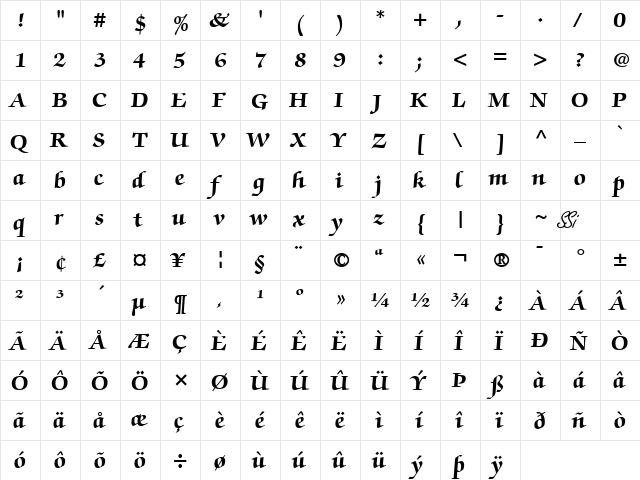
Chancery Script Black SSi Bold
Design Context for Chancery Script Black SSi Typeface
Chancery Script Black SSi brings a calligraphic fluidity to the page — its connecting strokes and expressive curves give it an unmistakably human quality. The heavy weight commands attention and anchors typographic hierarchies.
Font Pairing: Combine Chancery Script Black SSi with a simple geometric sans for maximum contrast — the tension between flowing curves and clean structure is a classic typographic pairing.
Pro Tip: Use Chancery Script Black SSi for short runs of text — names, titles, or taglines. Extended body copy in script faces tires the eye quickly.